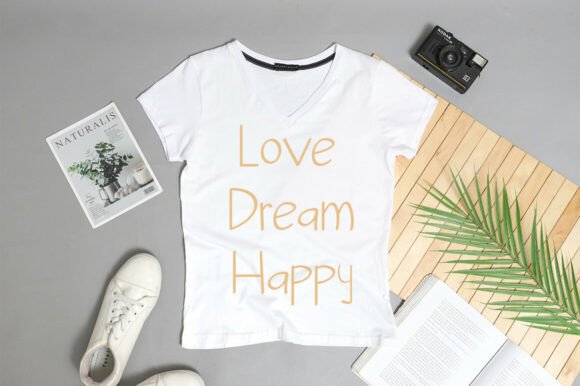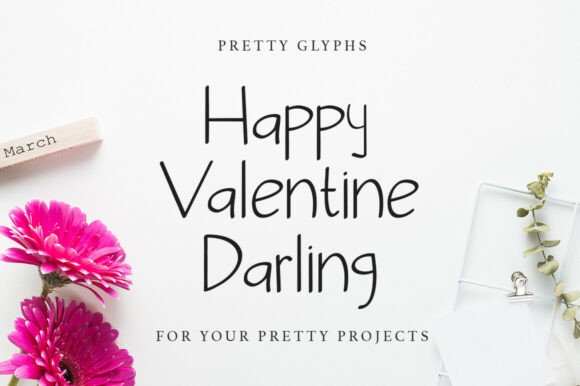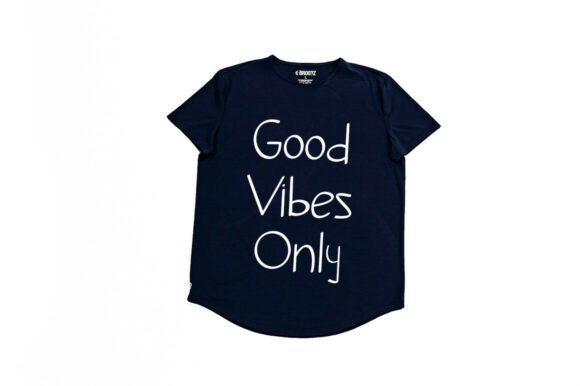
Introduction to Gentle Bloom Font
Gentle Bloom font is a sophisticated, thin-line handwritten sans-serif typeface that radiates elegance and quiet beauty.
With its airy structure and graceful curves, the Gentle Bloom typeface is the perfect choice for high-end wedding invitations, luxury skincare branding, or delicate poetry prints This Gentle Bloom font brings a sense of calm and refinement to any layout, working particularly well when surrounded by generous white space.
Key Features of Gentle Bloom Font